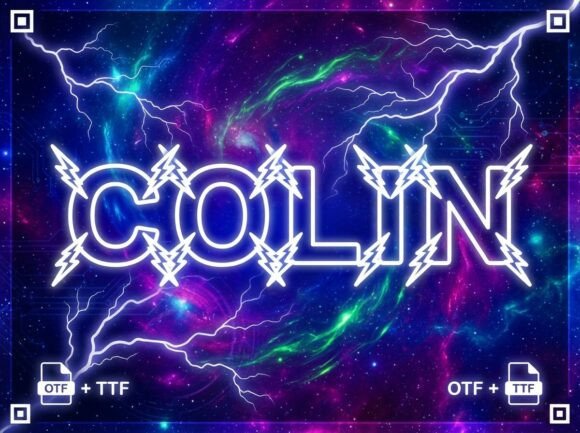
Introducing Colin Font: Shocking the System with Bold, High-Voltage Typography
In the world of typography, fonts are more than just a means of communication – they’re a way to express personality, attitude, and style. For designers and crafters looking to make a bold statement, Colin Font is here to shake things up. This high-voltage display typeface is designed to capture the essence of a “charged-and-rebellious” soul, making it perfect for independent rock band branding, extreme sports graphics, high-energy gaming logos, and high-impact social media headers.
The Design Behind the Shock
Colin Font features bold, outlined sans-serif letterforms that are framed by rhythmic, jagged lightning bolt strikes. These striking design elements radiate raw energy, giving the font an aggressive silhouette that’s hard to ignore. The heavy-metal aesthetic of Colin is unmistakable, making it an instant attention-grabber in any design project.
The font’s design is inspired by the high-energy world of rock music, extreme sports, and gaming. The bold, outlined letterforms are reminiscent of classic rock posters, while the jagged lightning bolt strikes evoke the intensity and power of electric guitar riffs. Whether you’re designing a logo for a rock band or a social media header for a gaming community, Colin Font is the perfect choice.
Key Features of Colin Font
So, what makes Colin Font so unique? Here are some of its key features:
• Bold, outlined sans-serif letterforms: The font’s bold, outlined design makes it perfect for display purposes, ensuring that your message stands out in any design project.
• Rhythmic, jagged lightning bolt strikes: The jagged lightning bolt strikes that frame the letterforms add a dynamic, high-energy feel to the font, making it perfect for high-impact designs.
• Heavy-metal aesthetic: The font’s heavy-metal aesthetic is unmistakable, making it perfect for designs that require a bold, aggressive look.
Use Cases for Colin Font
So, what can you use Colin Font for? The possibilities are endless, but here are some ideas to get you started:
• Independent rock band branding: Colin Font is perfect for rock band logos, posters, and merchandise, capturing the high-energy spirit of live music.
• Extreme sports graphics: The font’s bold, aggressive design makes it perfect for extreme sports branding, including logos, posters, and social media graphics.
• High-energy gaming logos: Colin Font is ideal for gaming logos, social media headers, and in-game graphics, conveying the intensity and energy of competitive gaming.
• High-impact social media headers: The font’s bold design makes it perfect for social media headers, ensuring that your message stands out in a crowded online space.
Tips for Using Colin Font
To get the most out of Colin Font, here are some tips to keep in mind:
• Use it sparingly: Due to its bold design, Colin Font is best used sparingly to avoid overwhelming the viewer.
• Pair it with contrasting fonts: Pair Colin Font with contrasting fonts to create visual interest and add depth to your design.
• Experiment with colors: The font’s bold design makes it perfect for experimenting with bright, bold colors that add to its high-energy feel.
Colin Font is a game-changer for designers and crafters looking to add a bold, high-voltage touch to their design projects. With its unique blend of bold, outlined letterforms and jagged lightning bolt strikes, this font is sure to shock the system and capture the attention of your audience. Whether you’re designing a logo for a rock band or a social media header for a gaming community, Colin Font is the perfect choice.